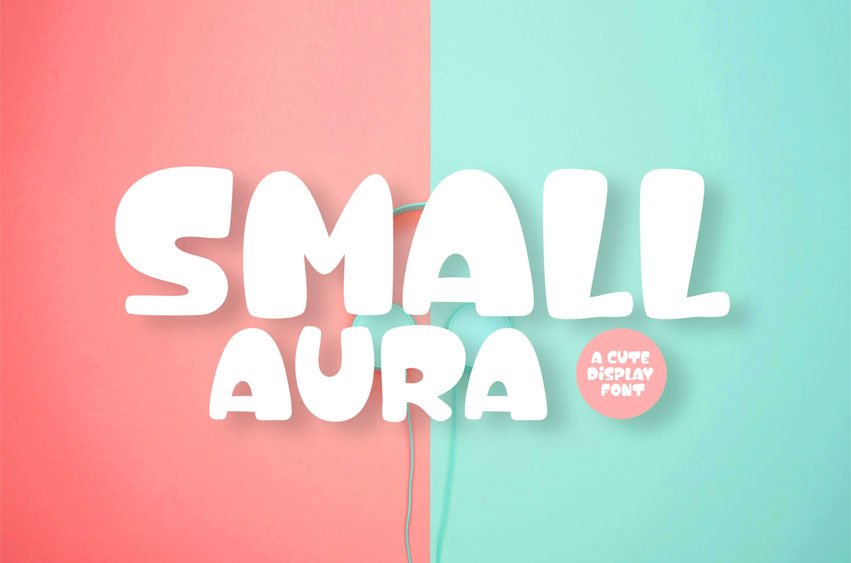
Small Aura Font
Small Aura Font is a fun display typeface with cheerful theme for your fun project. Small Aura font suitable for logo, branding, greeting card, poster and any design that you create.